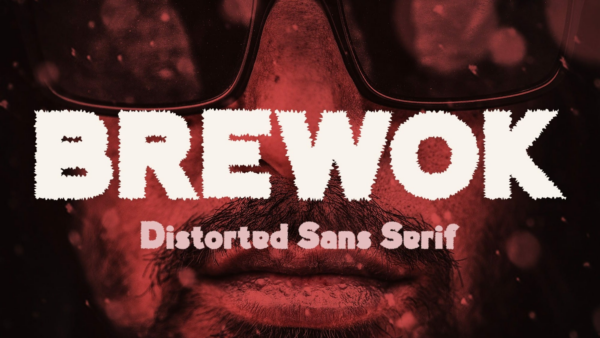
Brewok Distorted Font
Brewok is perfect to use in adventure-themed, food-themed, and music-themed designs. Brewok is suitable for any project that requires a bold and strong feel as the core design elements; such as logo, branding, greeting card, movie poster, product packaging – or a bold/strong text overlay to any background image.
Brewok features:
– Font type with bold and strong character
– Uppercase & Lowercase letters
– Numbering and Punctuation